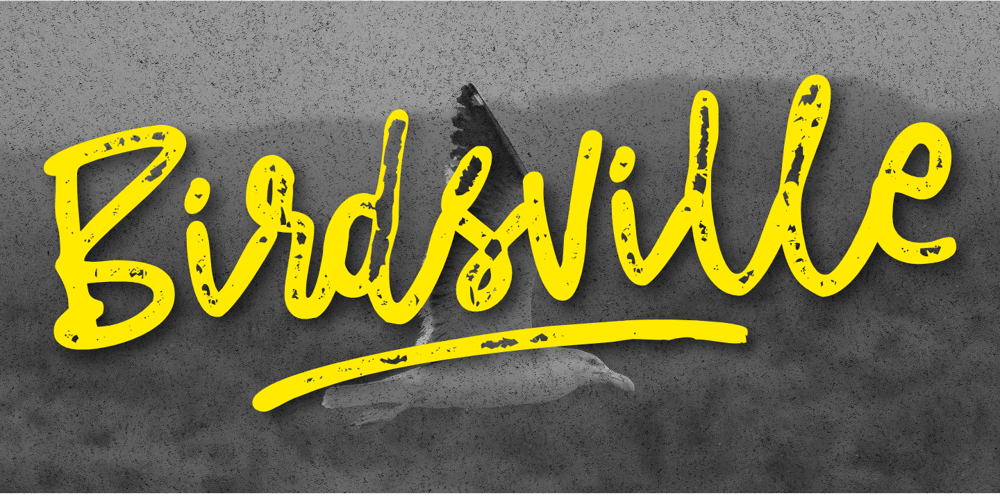
Birdsville Font Family was designed by Aldy Sidik and published by Epiclinez. Birdsville contains 1 styles and family package options. Introducing Birdsville, a brush script font With its mesmerizing brush script style, suitable for creating eye-catching headlines that demand attention and logotypes that exude personality, it is like the secret weapon of branding enthusiasts. Imagine your product packaging adorned with the distinct charm of Birdsville or seeing your movie titles come to life in an entirely new dimension – that’s the power this font brings to the table. And let’s not forget about its cool texture that adds depth and character to any project. Get ready to stand out from the crowd with Birdsville!Birdsville features : Standard Latin Numbers, symbols, punctuations, and ligatures Multilingual Support. Simple Installations Works on PC & Mac Thank You